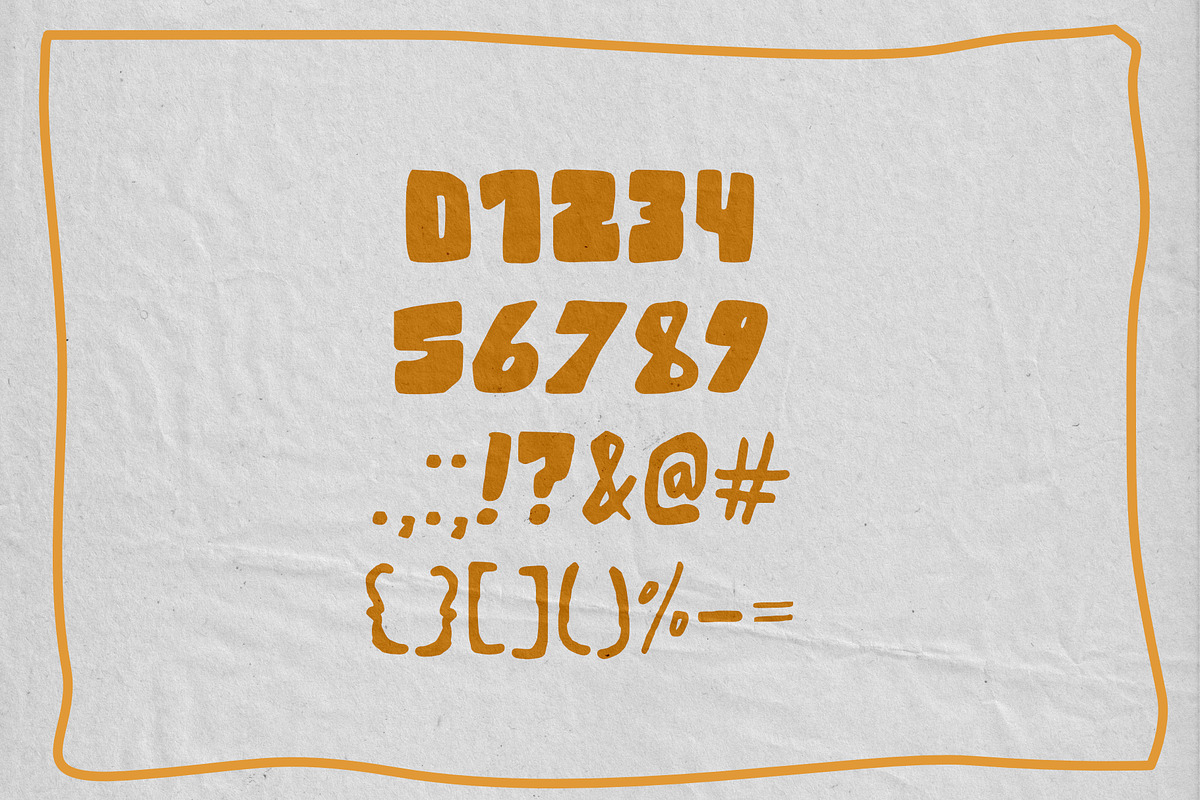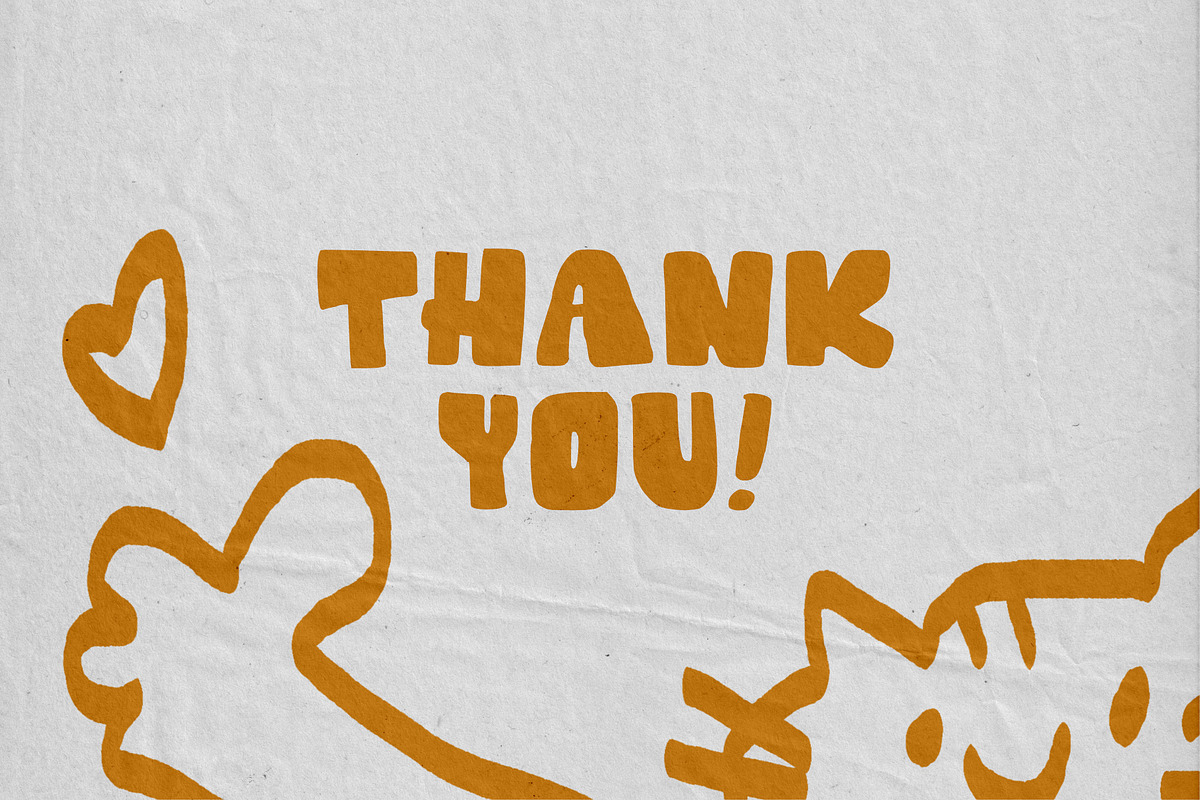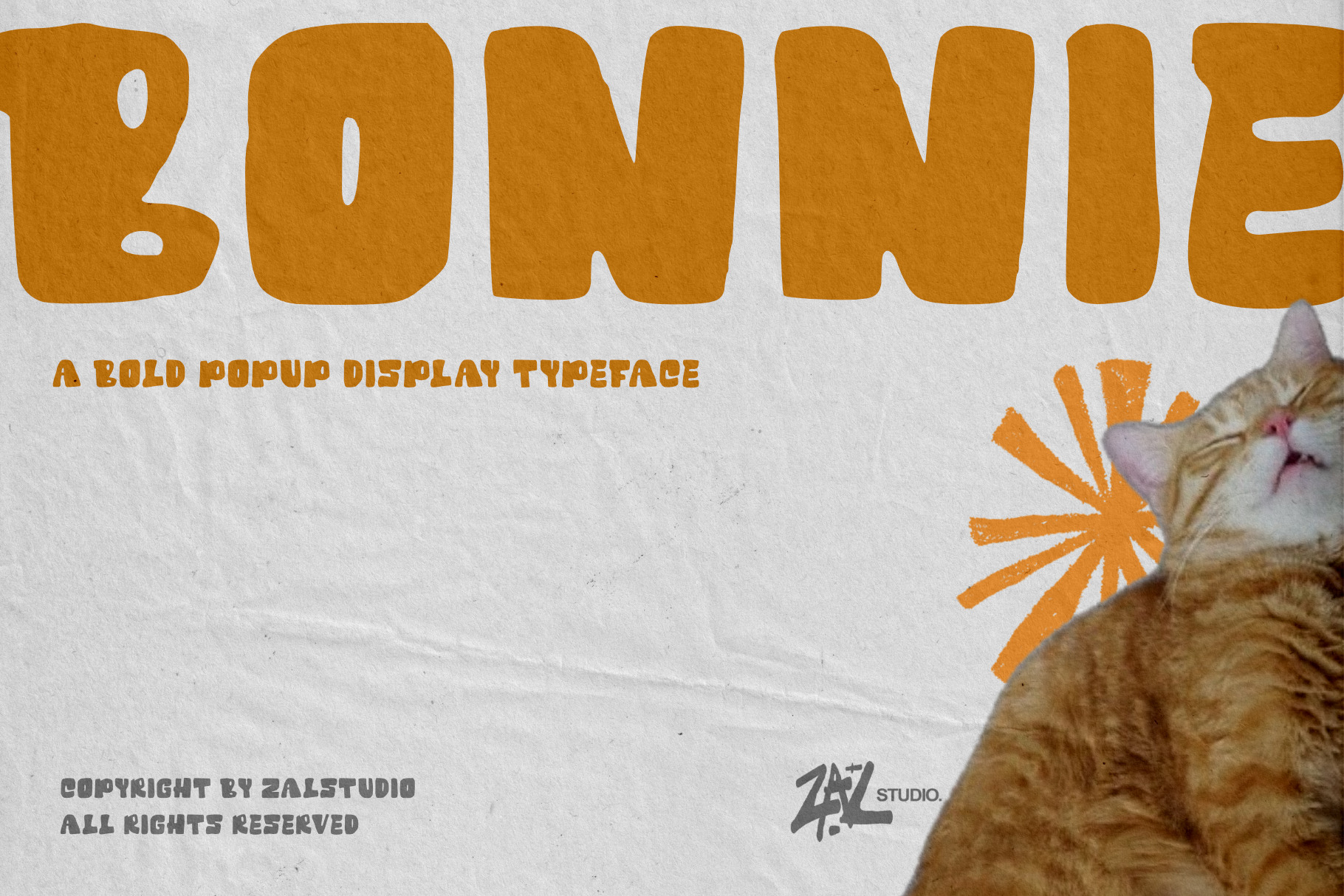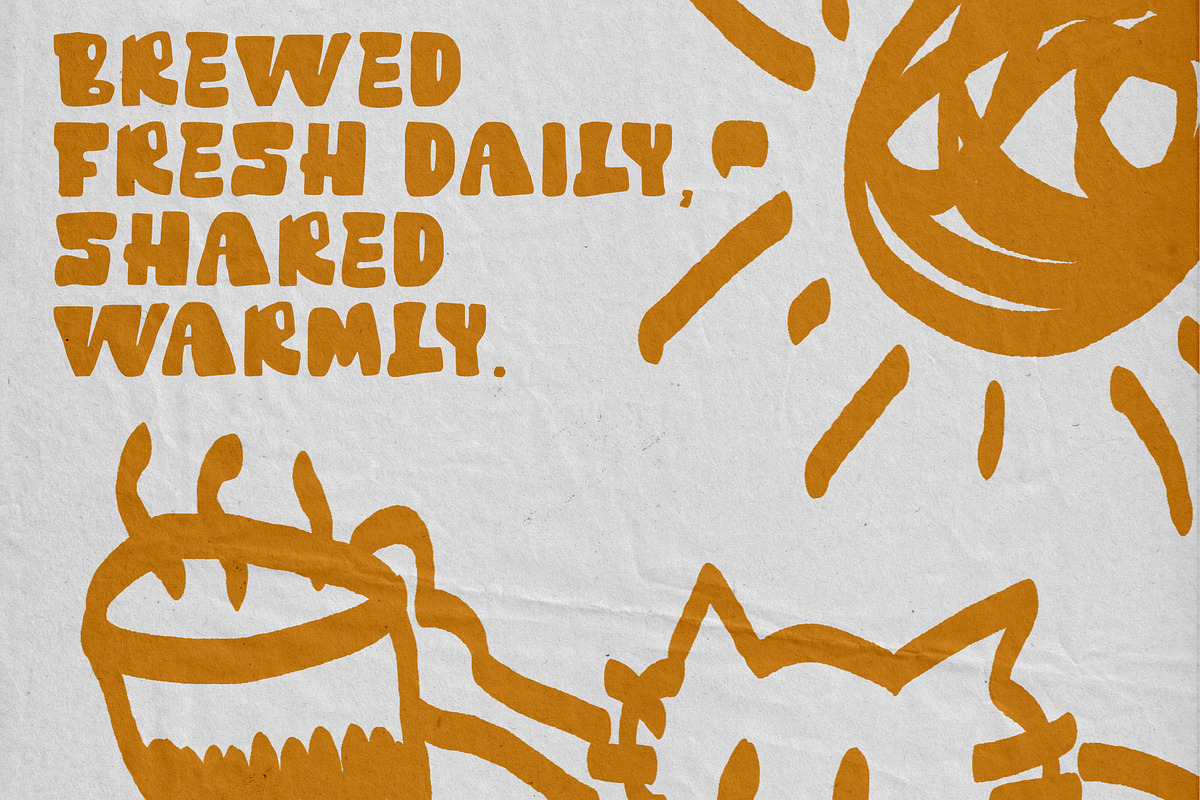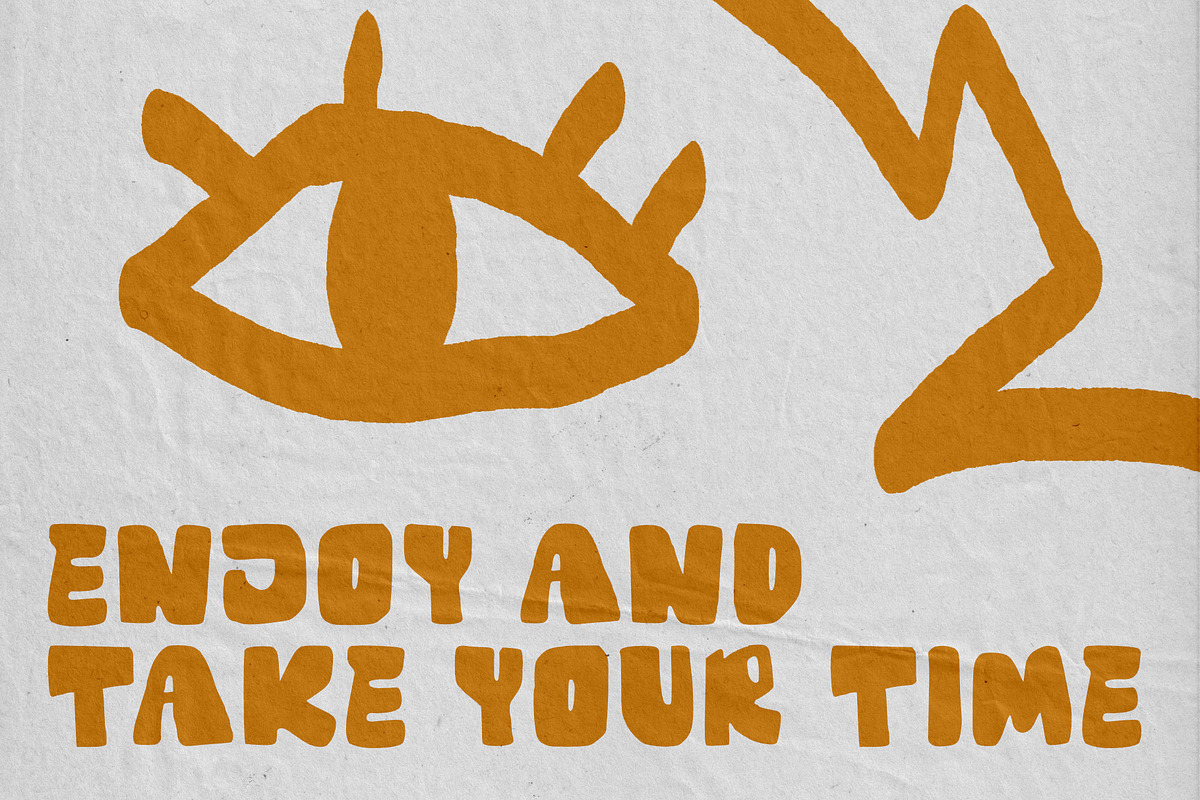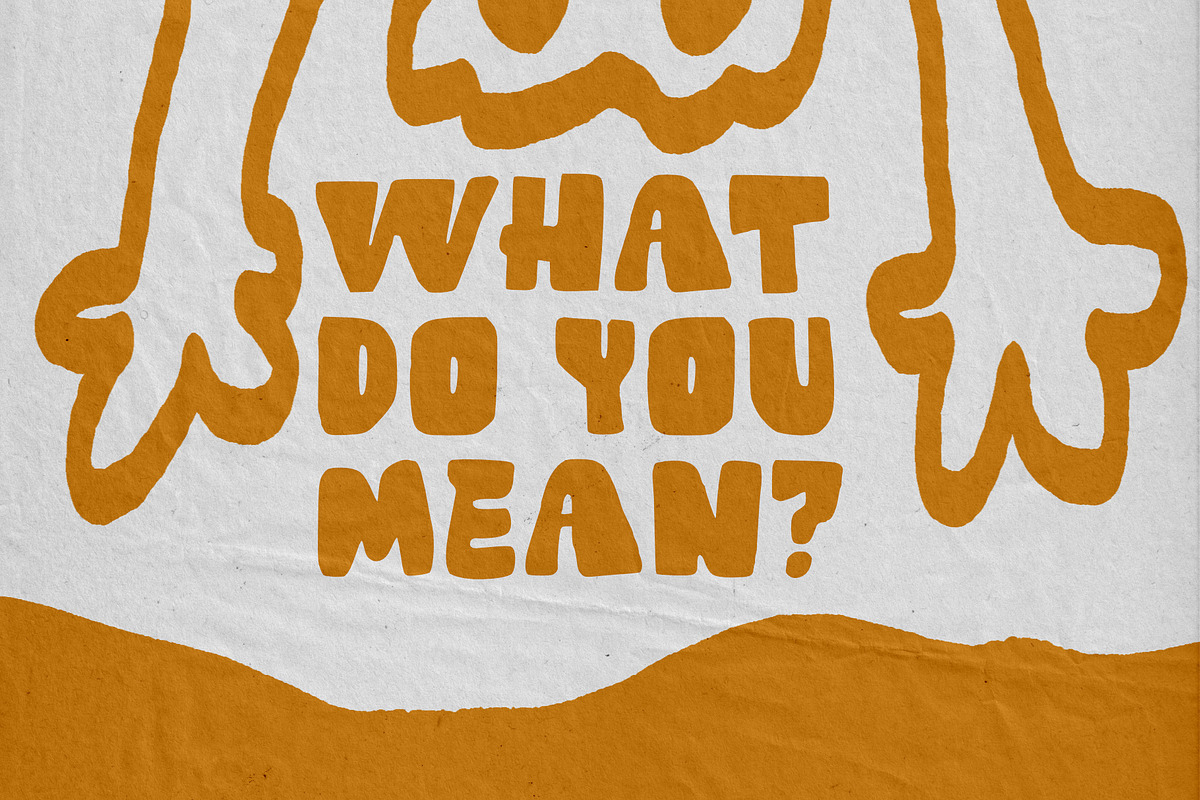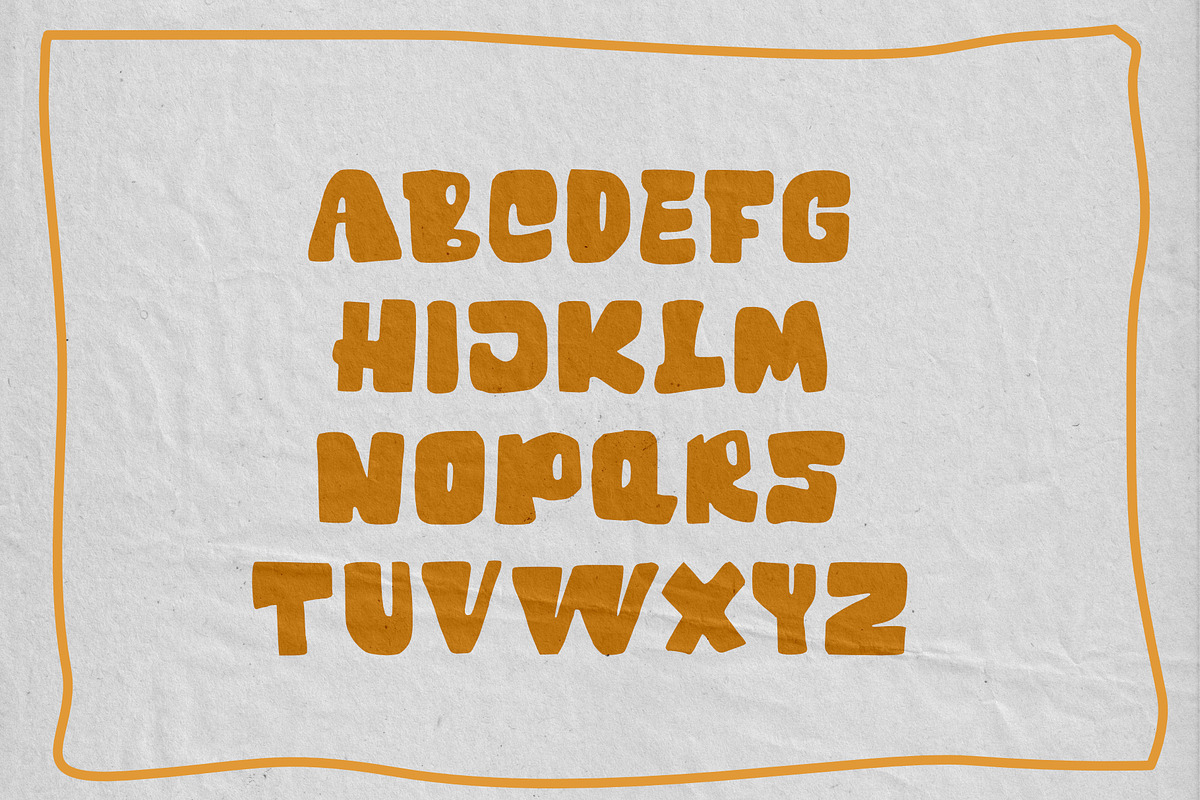
BONNIE BOLD FUN TYPEFACE
BONNIE - Bold Display Typeface
Make a bold statement with BONNIE, a powerful and eye-catching display typeface designed to bring confidence, personality, and impact to your creative projects.
BONNIE features a strong bold display style with a distinctive character that works beautifully for headlines, branding, posters, logos, packaging, editorial designs, social media graphics, and advertising. Its attention-grabbing appearance makes it an excellent choice whenever your design needs a strong visual presence.
Whether you're creating a modern brand identity, a striking poster, a fashion campaign, a product label, or social media content, BONNIE is built to stand out.
Logo & Brand Identity
Typography & Wordmarks
Posters & Flyers
Editorial Design
Magazine Headlines
Advertising & Campaigns
T-Shirt & Apparel Design
Product Labels
Album & Cover Artwork
Website Headlines
Creative Merchandise
Display Typography
Font Highlights
Bold display typeface
Strong and distinctive letterforms
Eye-catching headline style
Great for branding and advertising
Suitable for print and digital design
Versatile for both personal and commercial projects
Designed for large typography and impactful compositions
Why BONNIE?
BONNIE is made for designers who want typography to become a visual statement. Its bold presence helps headlines, logos, and key messages immediately capture attention while adding a confident and contemporary personality to your designs.
Use BONNIE for branding, logos, posters, packaging, editorial layouts, social media, advertising, apparel, and other creative projects where strong display typography is essential.